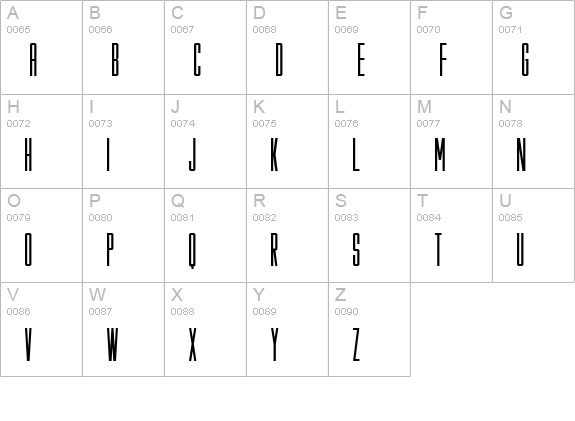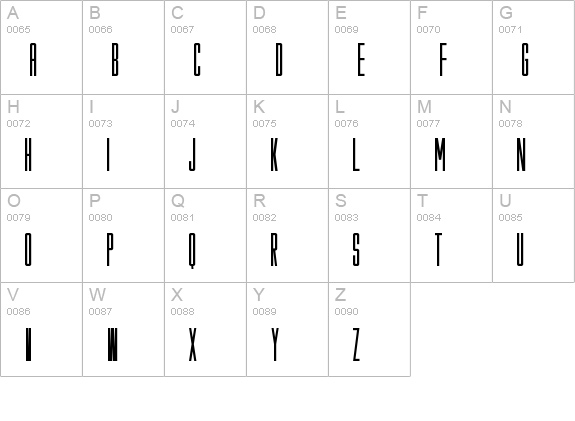
Fake Plastic Font Details
Introducing Fake Plastic font, a stylish and modern typeface that exudes a sleek and contemporary vibe. This versatile font is perfect for a wide range of design projects, from branding to editorial design. The clean lines and geometric shapes of Fake Plastic font make it a standout choice for any creative endeavor. What's even better is that Fake Plastic font is available for free download at FontsMarket.com. That's right, you can add this stunning font to your collection without spending a dime. So why wait? Elevate your designs with the effortlessly chic Fake Plastic font today.